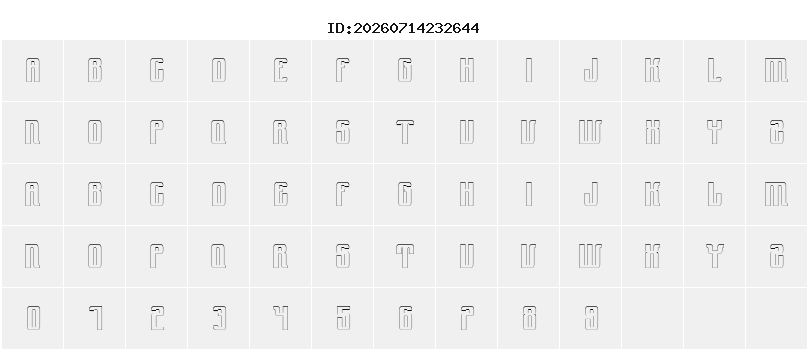
YnduOut Preview
• Font Name: YnduOut
• Full Font Name: YnduOut
About YnduOut.ttf
YnduOut.ttf is a modern, elegant sans-serif font designed for ultimate readability and visual harmony. Perfect for branding, headlines, web design, and print materials.